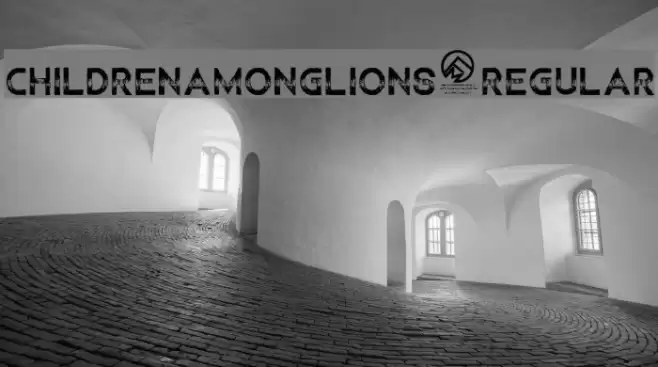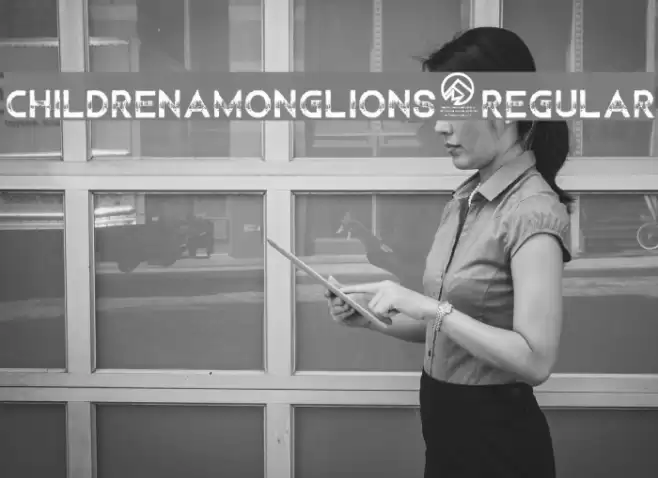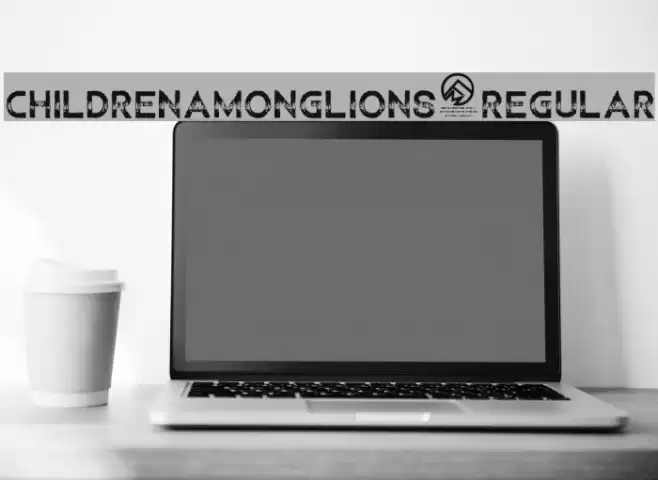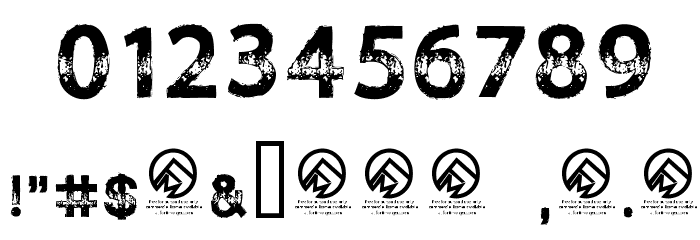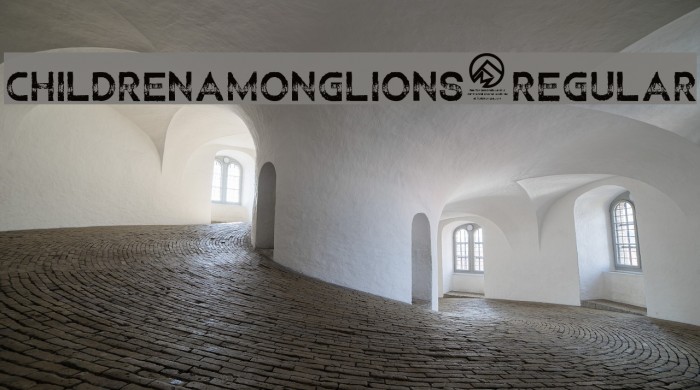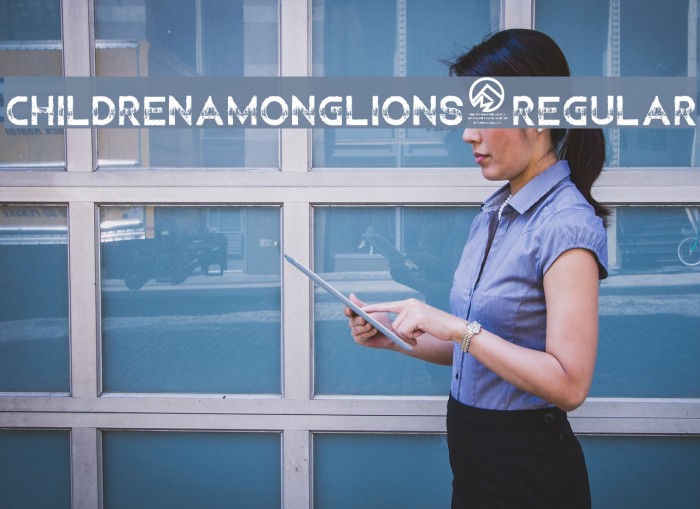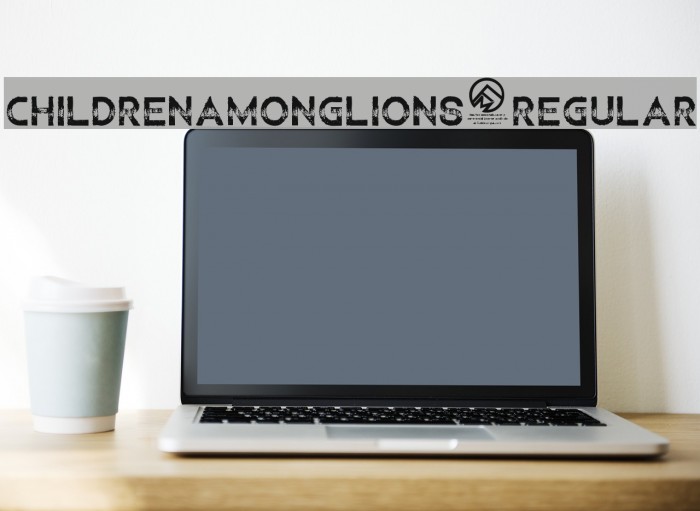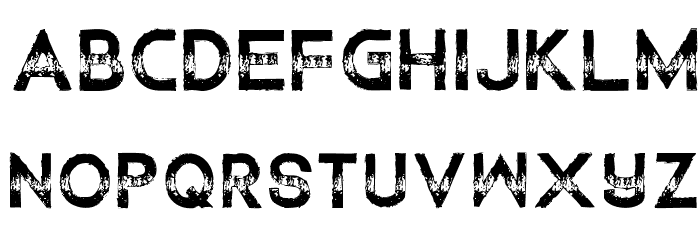
ChildrenAmongLions-Regular Font
ChildrenAmongLions-Regular Description
This font features a bold, distressed style with a textured appearance that gives it a rugged, worn look. The characters are uppercase and lowercase, with numbers and a selection of special characters. Each letter is designed with a rough, grunge effect, making it ideal for projects that require a vintage or edgy aesthetic. The font's unique texture adds depth and character, making it stand out in any design. Its boldness ensures readability while maintaining a distinct artistic flair.
A bold, distressed font with a rugged, textured appearance from Distorted Eroded fonts.
- Proposed Projects: Ideal for posters, album covers, branding for edgy or vintage-themed products, and any design needing a bold statement.
- Overall Style: Vintage, Edgy